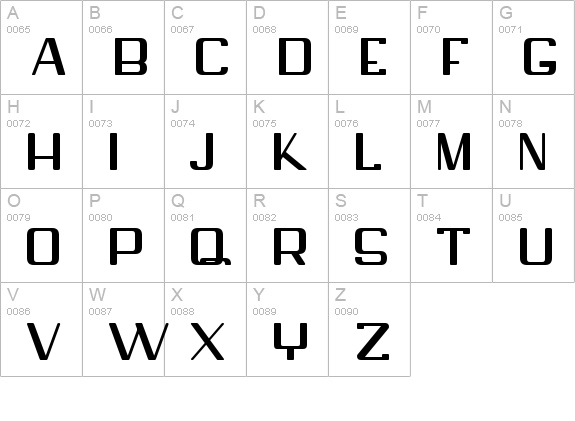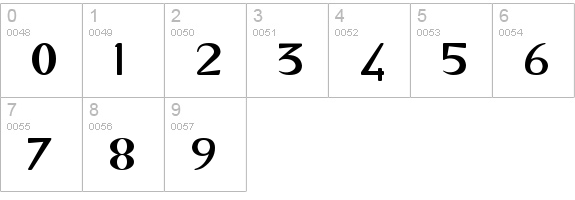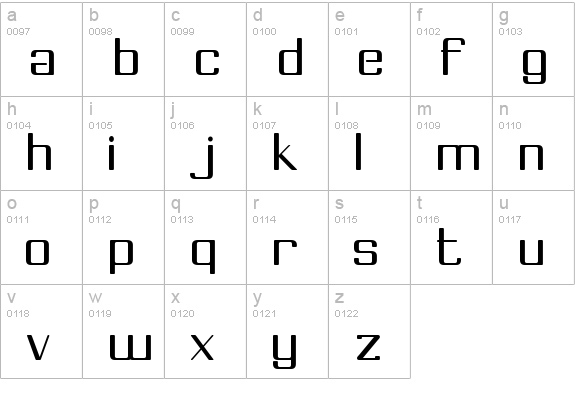
Ranger Regular Font Details
Ranger Regular is the standard, neutral variant in the Ranger typeface family \xE2\x80\x94 well suited to general body text, paragraphs, and standard typographic work.
Ranger Regular font is a versatile and stylish typeface that exudes a sense of strength and reliability. Its clean and modern design makes it suitable for a wide range of projects, from professional documents to creative displays. With its balanced and legible letterforms, Ranger Regular font is perfect for both headings and body text. It offers a sense of professionalism and sophistication, making it a great choice for corporate branding or editorial projects. Whether you are designing a logo, creating a website, or working on a print publication, Ranger Regular font will ensure your message is delivered with clarity and impact. What sets Ranger Regular font apart is that it is freely available for download at FontsMarket.com. This means that you can easily access and use this font in your projects without any cost. FontsMarket.com is a trusted platform known for its extensive collection of high-quality fonts, and Ranger Regular font is no exception. Downloading Ranger Regular font from FontsMarket.com is quick and hassle-free. Once you have the font file, you can easily install it on your computer or device and start using it in your favorite design software. The font is compatible with both Windows and Mac operating systems, ensuring that you can seamlessly integrate it into your workflow. Whether you are a designer, a student, or simply someone looking to enhance their visual creations, Ranger Regular font is a valuable asset. Its versatility, elegance, and the fact that it is freely available make it an excellent choice for any project. So why wait? Head over to FontsMarket.com and download Ranger Regular font today to elevate your designs to the next level.